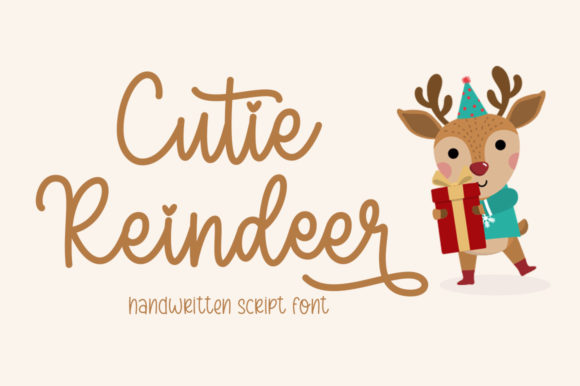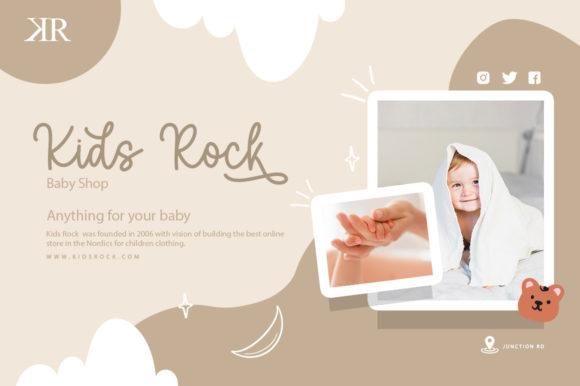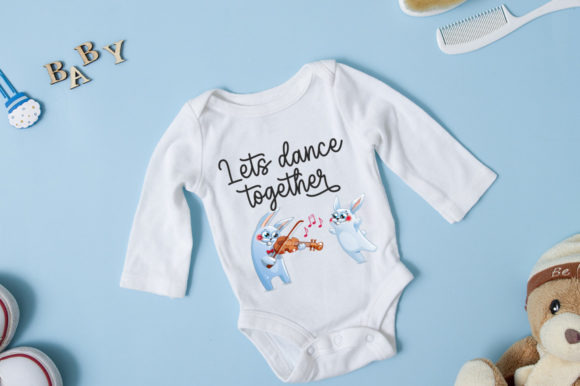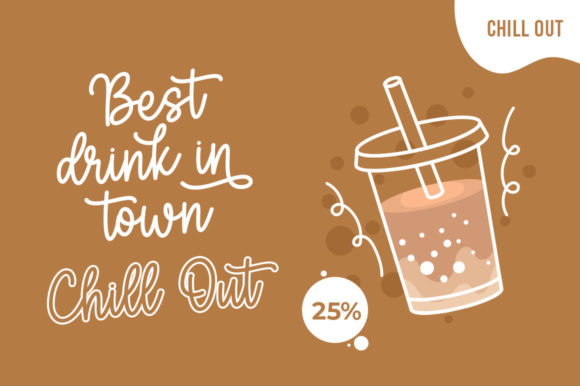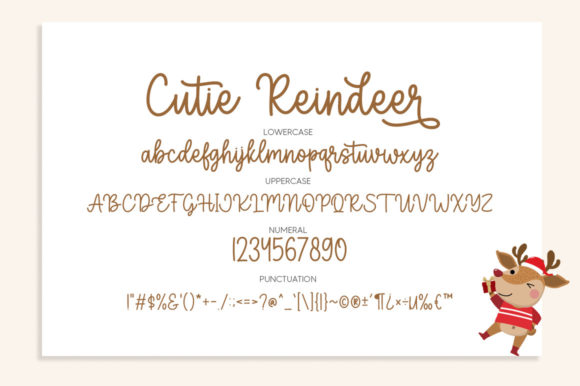
About Cutie Reindeer Font
Cutie Reindeer is a dainty and flowing handwritten font.
Sweet and Christmasy, this font will be ideal for writing wedding invitations, cards or any other design that may need a romantic, personalized touch!